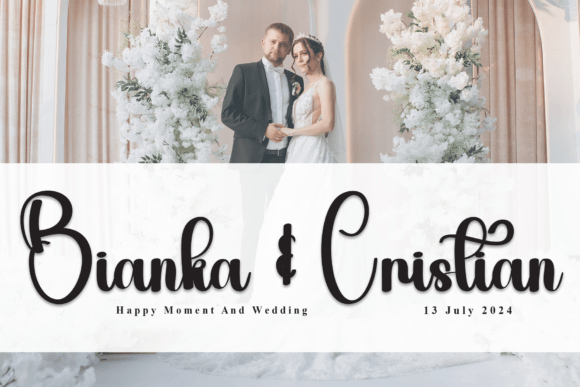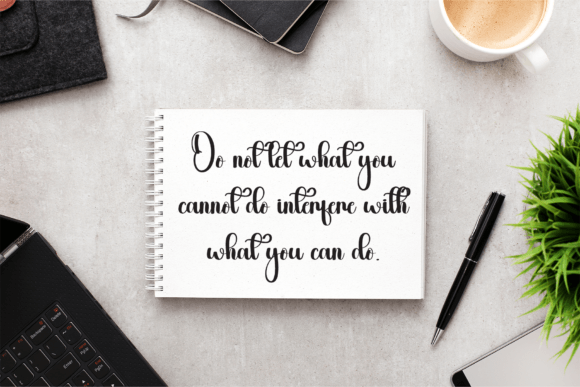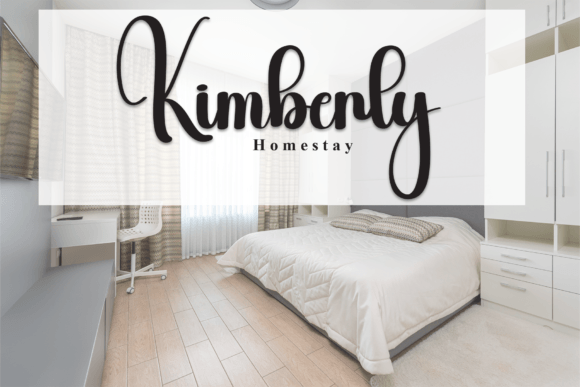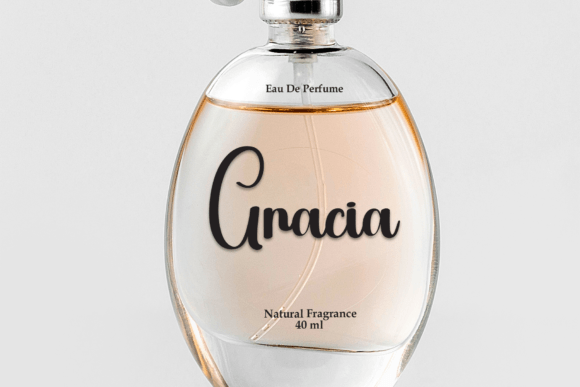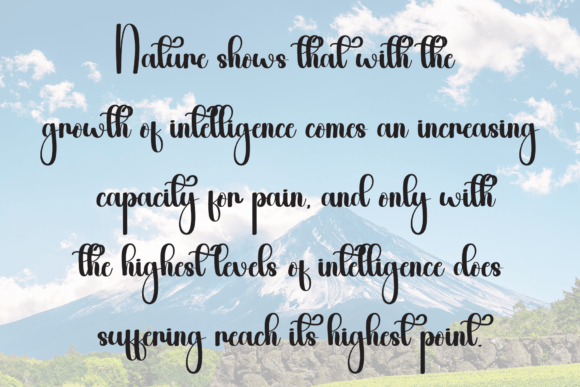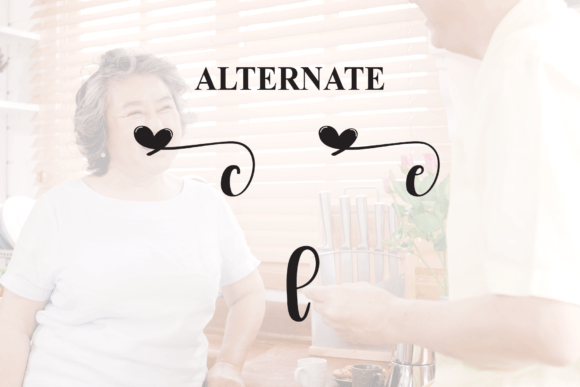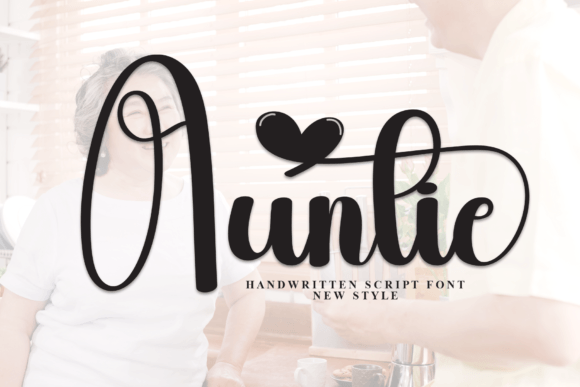
The Joy of Auntie Font: Elevating Your Designs with a Playful Twist
Have you ever been in the middle of a design project, pouring your heart and soul into it, only to hit a creative roadblock? You’re not alone! I recall a particularly frustrating moment when I was working on a wedding invitation design, and I just couldn’t find the right font to capture the playful, yet elegant vibe my client was looking for. That’s when I stumbled upon Auntie Font, and let me tell you, it was love at first sight! 💕
What Makes Auntie Font So Special?
Auntie Font is a charmingly playful and tender handwritten display font that is bound to add vibrance and an adorable twist to your designs. Perfect for crafting wedding invitations, cards, or any design, it imbues a cheerful and delightful touch, effortlessly transforming ordinary into extraordinary. This font embodies the warmth of a personal note, taking your creative expressions to a whole new level.
- ✨ The playful, handwritten feel that adds a personal touch to any design
- ✅ The font’s versatility – it works beautifully for both digital and print designs
- 💫 The unique character set, including glyphs and stylistic alternates, that allow for endless creative possibilities
- 🎉 The font’s ability to evoke emotions and create a connection with the reader
While Auntie Font is an amazing addition to any design project, there are a few things to keep in mind: 🤔
- ⚠️ The font may not be suitable for very formal or corporate designs, as it has a distinctly playful personality
- ⚠️ Some characters may require manual kerning for optimal results
The Backstory Behind Auntie Font
Auntie Font was designed with love and care by a talented type designer who wanted to create a font that would bring a smile to people’s faces. The designer drew inspiration from their own grandmother’s handwritten notes and letters, which were always filled with warmth and personality. The result is a font that’s both playful and tender, perfect for designs that require a personal touch.
Q: What is Auntie Font’s personality?
A: Auntie Font has a playful, yet tender personality that’s perfect for designs that require a personal touch.
Q: Is Auntie Font suitable for digital designs?
A: Absolutely! Auntie Font works beautifully for both digital and print designs.